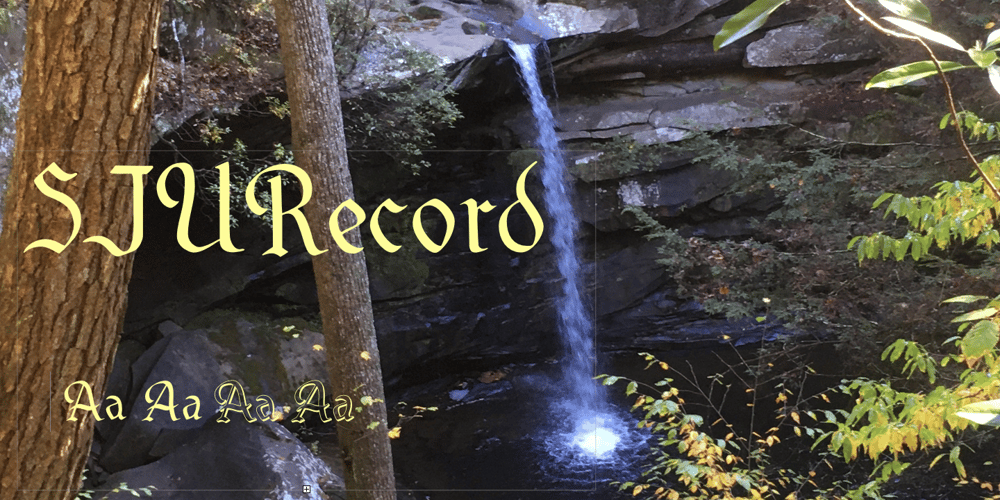
SJURecord Font Family was designed by Robert Schenk and published by Ingrimayne Type. SJURecord contains 4 styles and family package options. The inspiration for SJURecord was calligraphic lettering used for the title of a student newspaper, St. John’s Record, during the late 1920s and early 1930s. The three upper-case and nine lower-case letters were considerably different from any calligraphic lettering I had developed, so I thought creating a complete typeface around these twelve letters would be an interesting challenge. The SJCRecord family has four members: regular, oblique, shadowed, and oblique shadowed. There are alternate letters for A, J, L, S, V, W, and X.